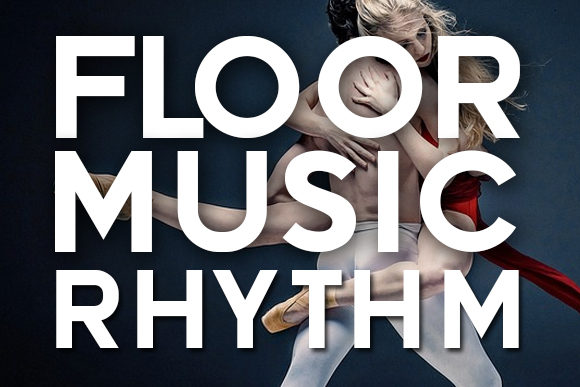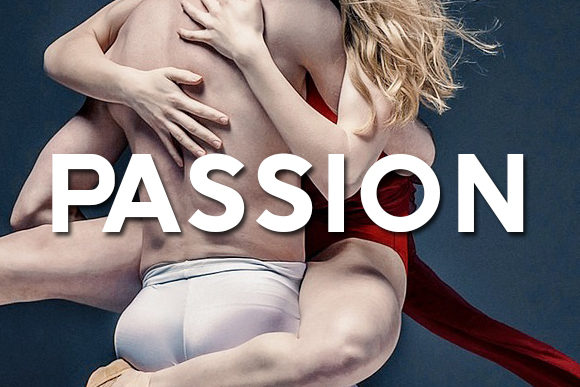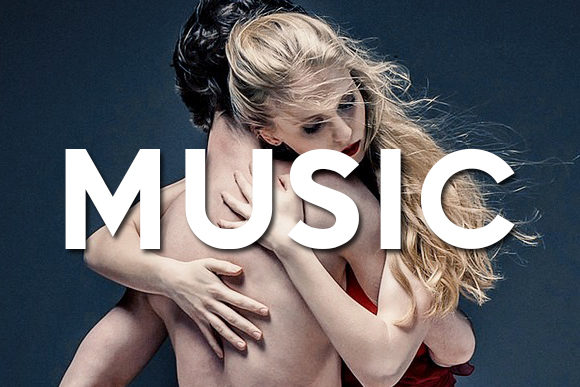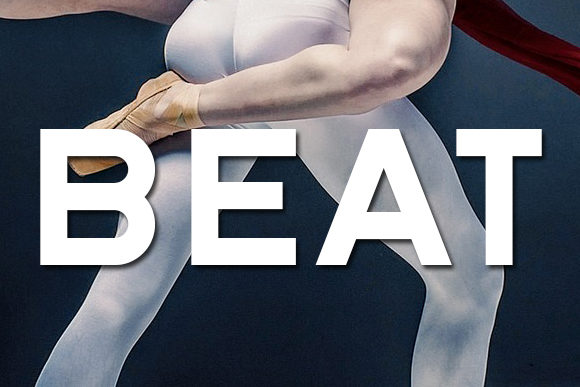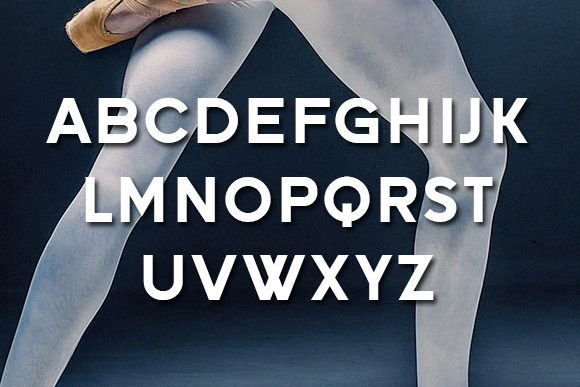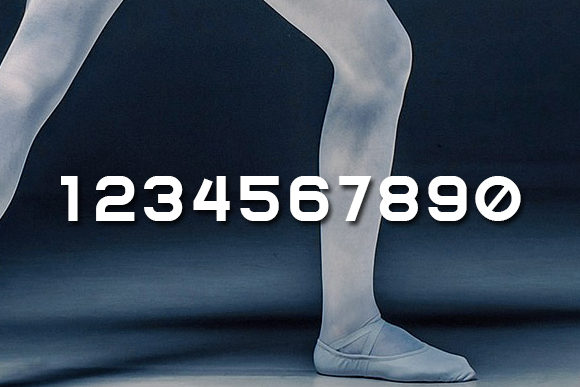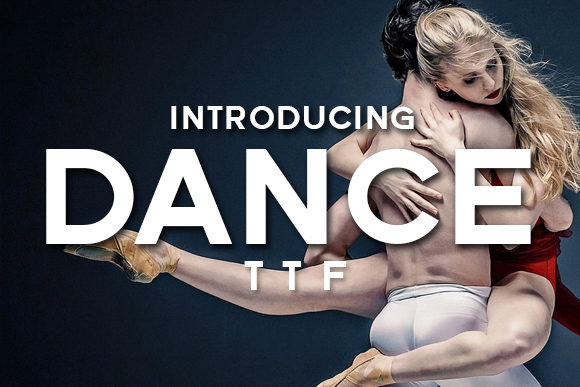
Dance Font: Elevate Your Designs with a Simple yet Powerful Sans Serif Font
Are you a designer or crafter looking for a font that can add a touch of elegance and sophistication to your creative projects? Look no further than the Dance Font, a simple yet powerful sans serif font that is perfect for a wide range of applications. In this article, we’ll take a closer look at the Dance Font, its features, and how you can use it to bring your designs to life.
What is Dance Font?
Dance Font is a sans serif font that is designed to be clean, modern, and highly legible. Its simple and minimalist design makes it perfect for use on a variety of mediums, including t-shirts, posters, flyers, and more. The font is highly versatile and can be used for both personal and commercial projects, making it a great addition to any designer’s toolkit.
Key Features of Dance Font
So, what makes Dance Font so special? Here are just a few of its key features:
- Simple and Modern Design: Dance Font has a clean and modern design that is perfect for creating contemporary and stylish designs.
- Highly Legible: The font is highly legible, even at small sizes, making it perfect for use on a variety of mediums.
- Easily Customizable: The font is easily customizable, allowing you to adjust the size, color, and style to suit your needs.
How to Use Dance Font in Your Designs
So, how can you use Dance Font in your designs? Here are a few ideas to get you started:
- T-Shirts: Use Dance Font to create stylish and eye-catching t-shirt designs that are perfect for personal or commercial use.
- Posters: Create stunning posters that showcase your message in a clear and concise way.
- Flyers: Use Dance Font to create eye-catching flyers that grab attention and communicate your message effectively.
- Branding: Use Dance Font as part of your branding strategy to create a consistent and professional look across all of your marketing materials.
Why Choose Dance Font?
So, why should you choose Dance Font for your design projects? Here are just a few reasons:
- Unique and Creative: Dance Font is a unique and creative font that can help your designs stand out from the crowd.
- Easy to Use: The font is easy to use and can be easily customized to suit your needs.
- High-Quality: Dance Font is a high-quality font that is designed to produce stunning results.
Tips for Using Dance Font Effectively
Here are a few tips for using Dance Font effectively in your designs:
- Use it Sparingly: Use Dance Font sparingly to create emphasis and add visual interest to your designs.
- Experiment with Different Sizes: Experiment with different sizes and colors to create visual hierarchy and add depth to your designs.
- Pair it with Other Fonts: Pair Dance Font with other fonts to create a unique and creative look.
- Keep it Simple: Keep your designs simple and uncluttered to allow Dance Font to shine.
In conclusion, Dance Font is a simple yet powerful sans serif font that is perfect for designers and crafters looking to add a touch of elegance and sophistication to their creative projects. Its clean and modern design, high legibility, and versatility make it a great addition to any designer’s toolkit. With its ease of use, high-quality design, and affordability, Dance Font is a great choice for anyone looking to elevate their designs and bring their creative ideas to life.